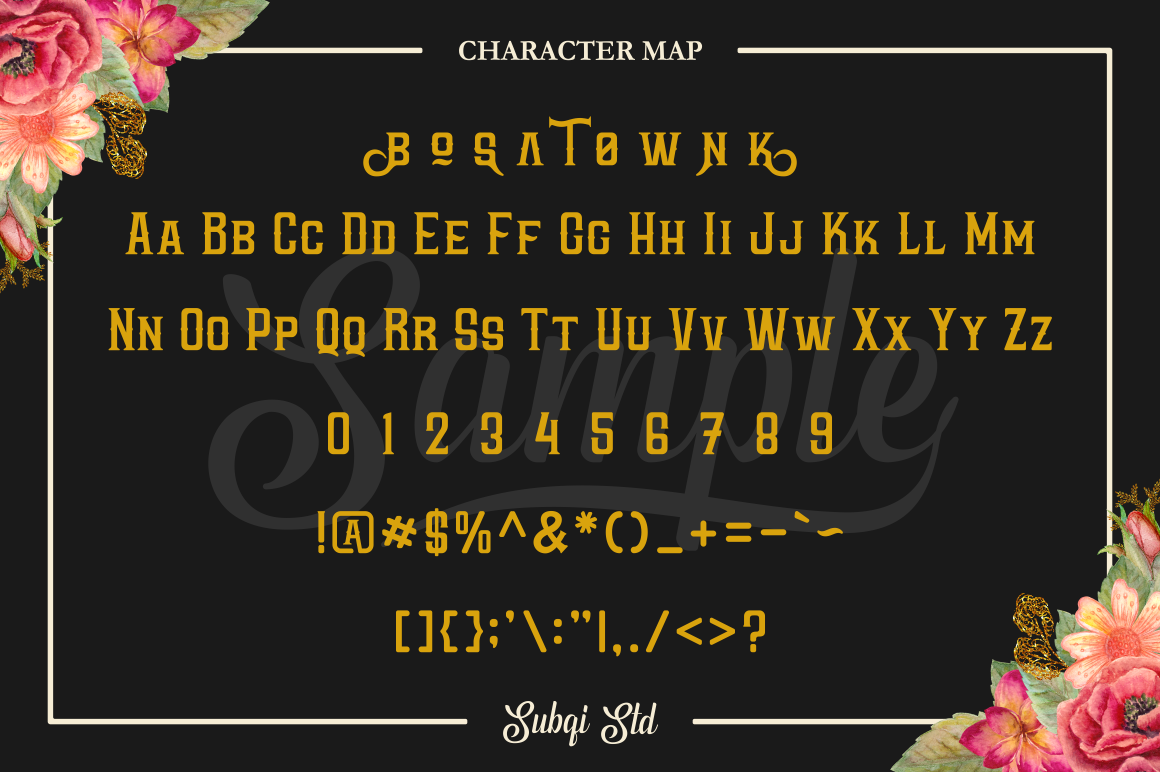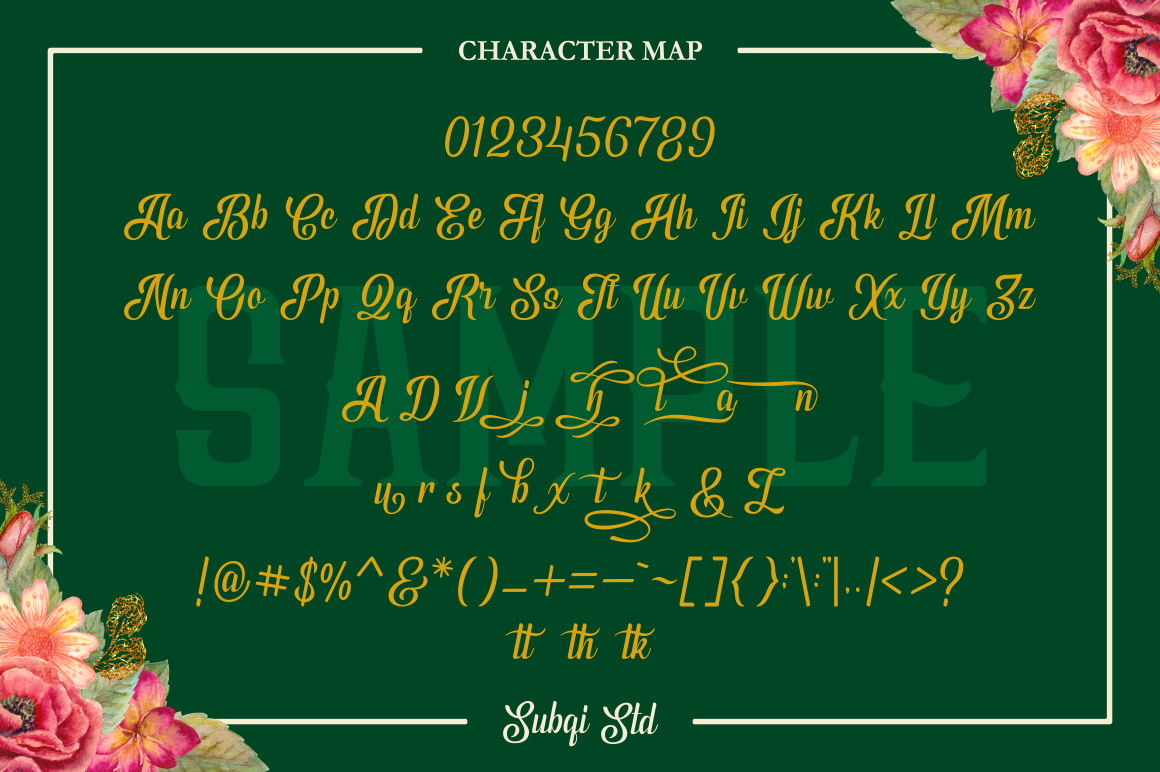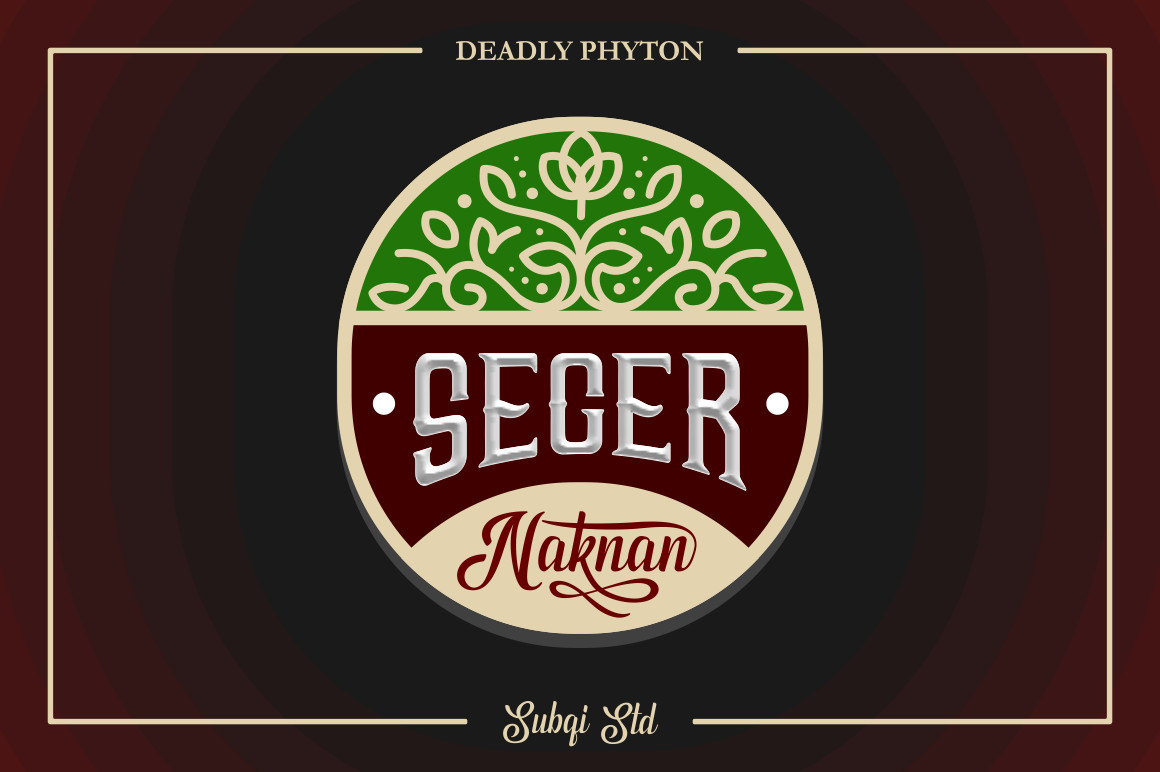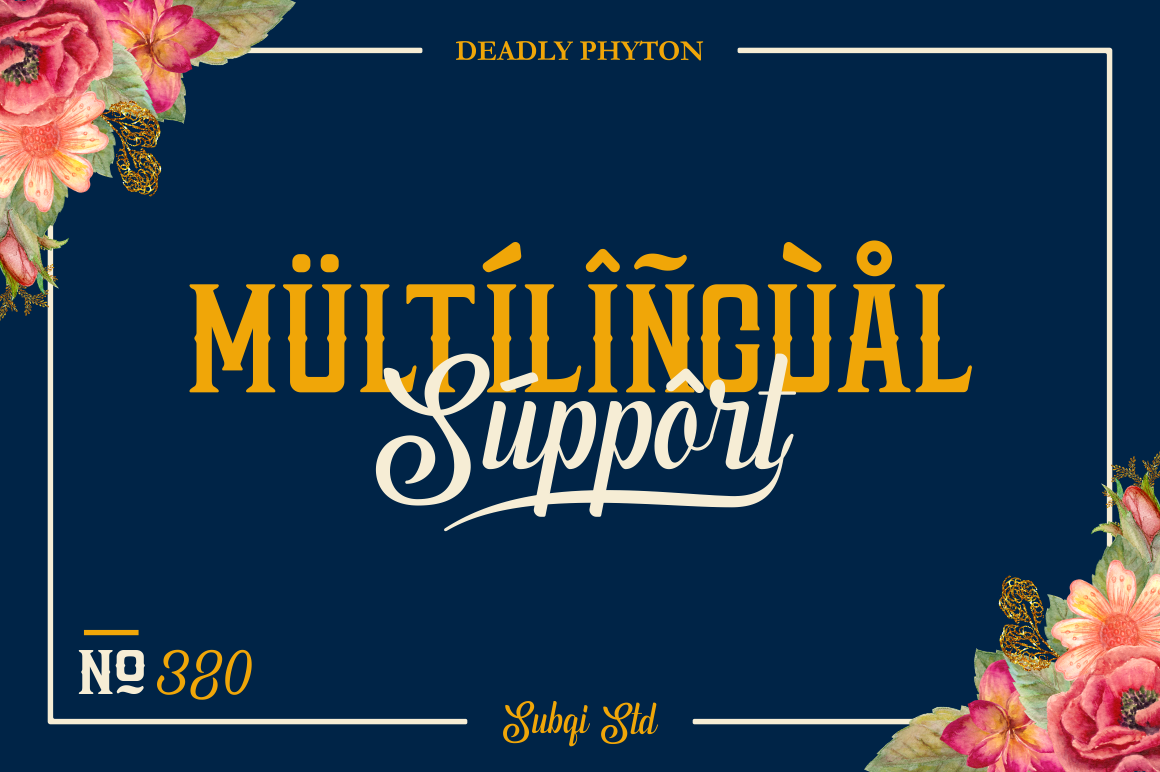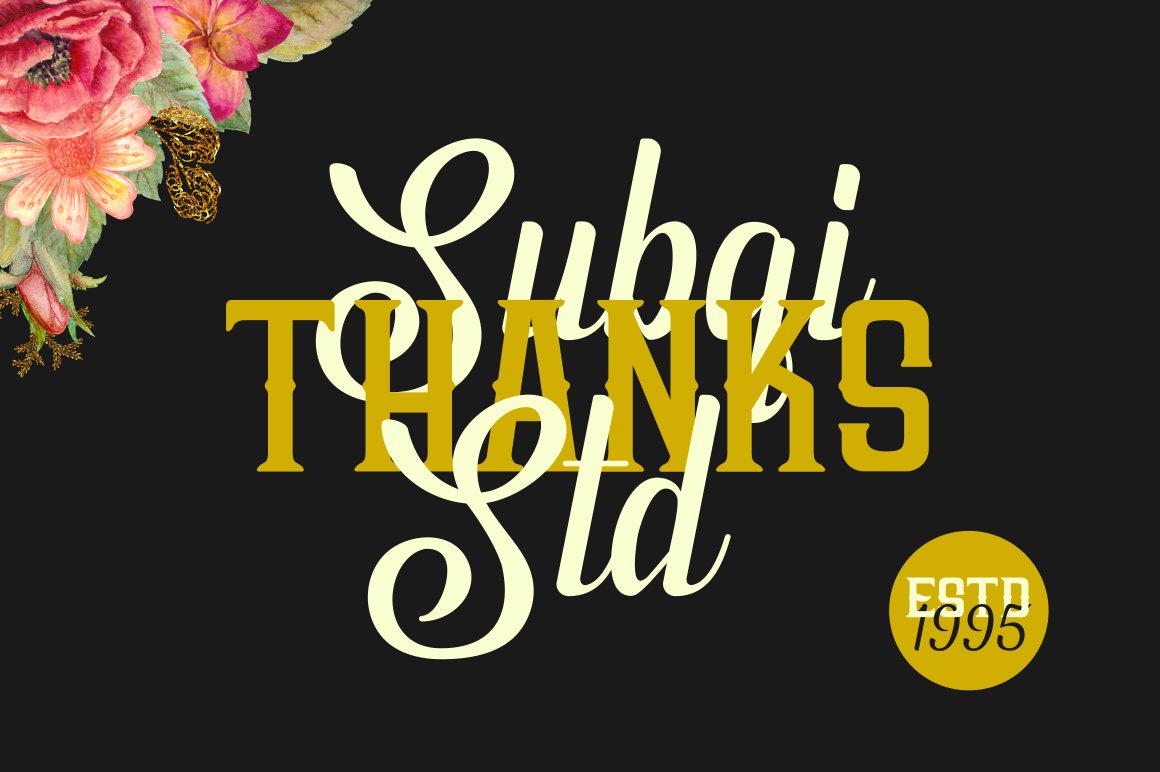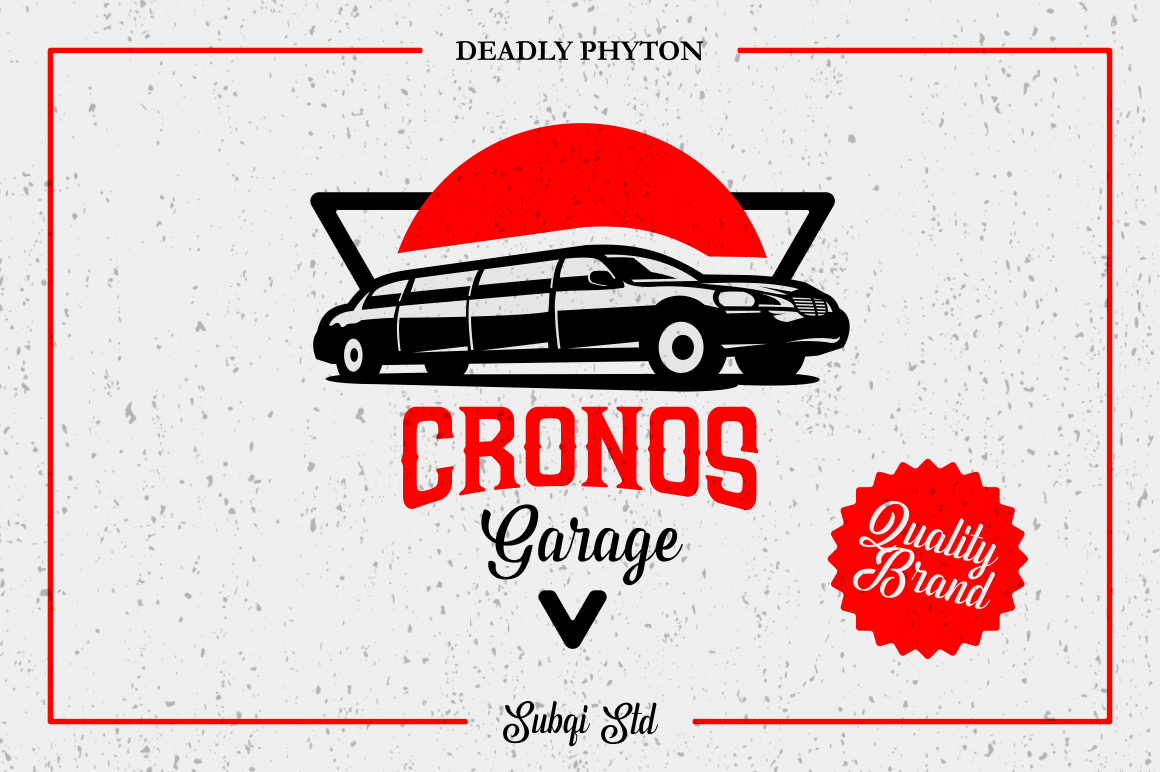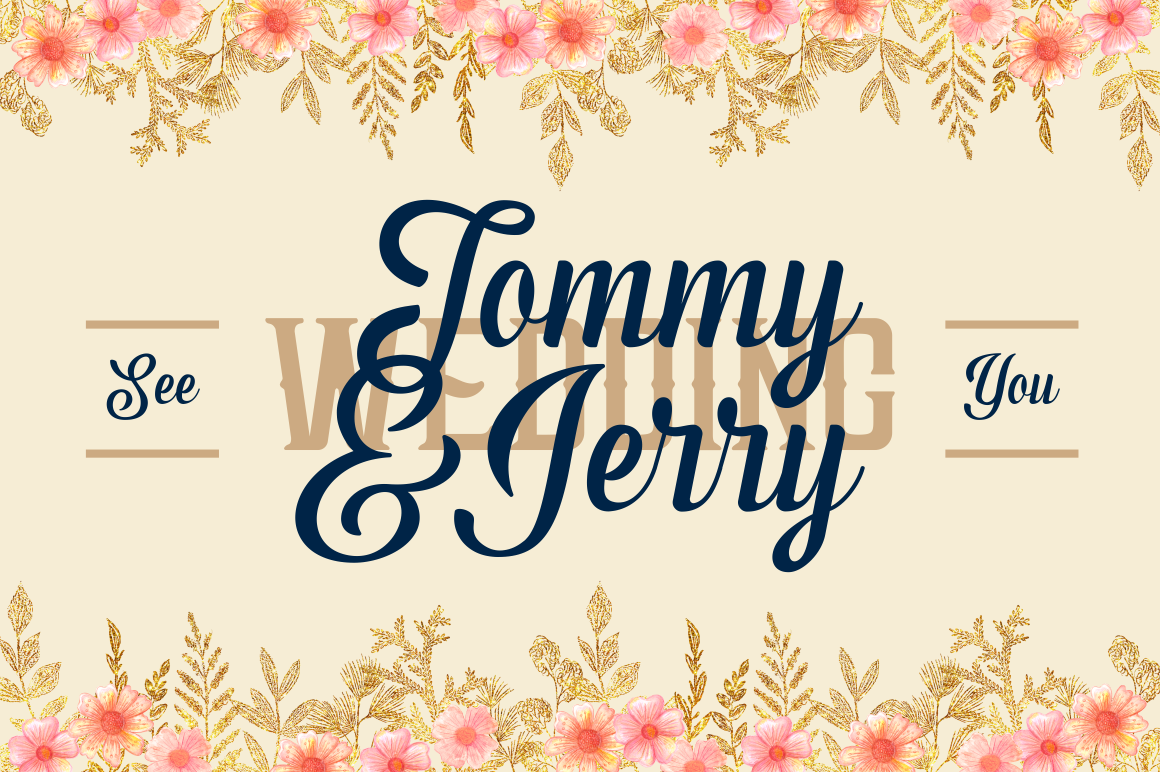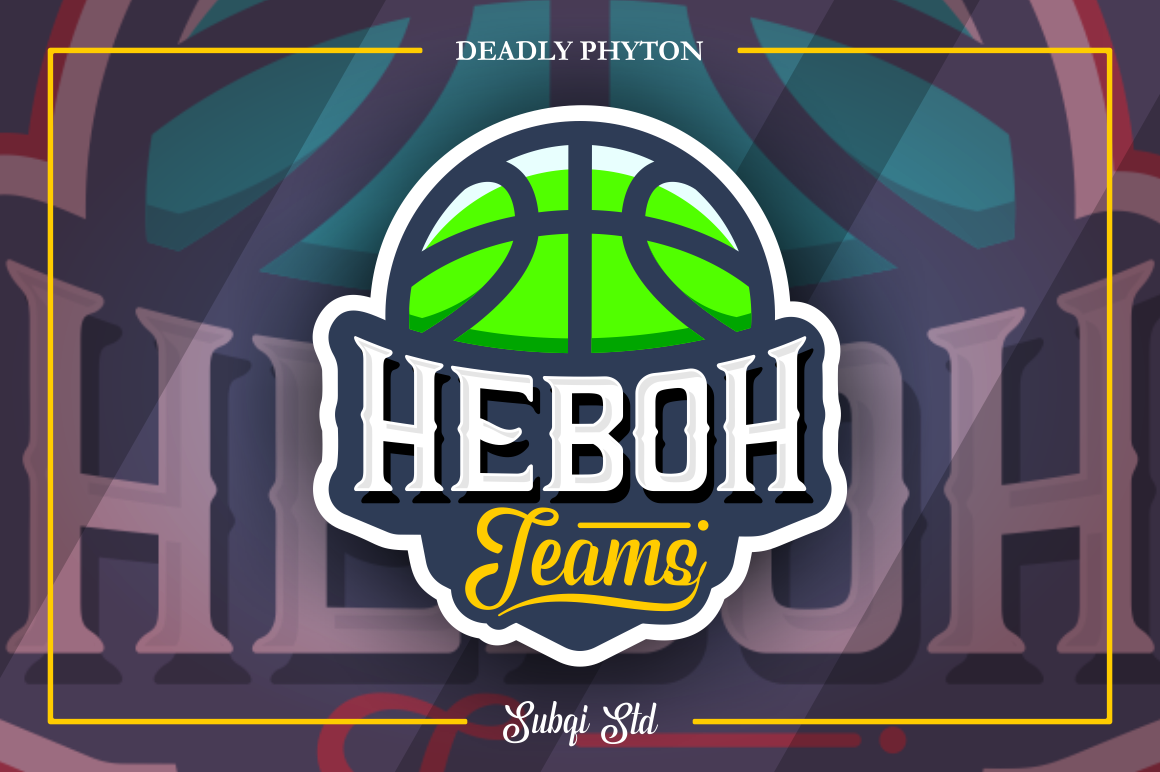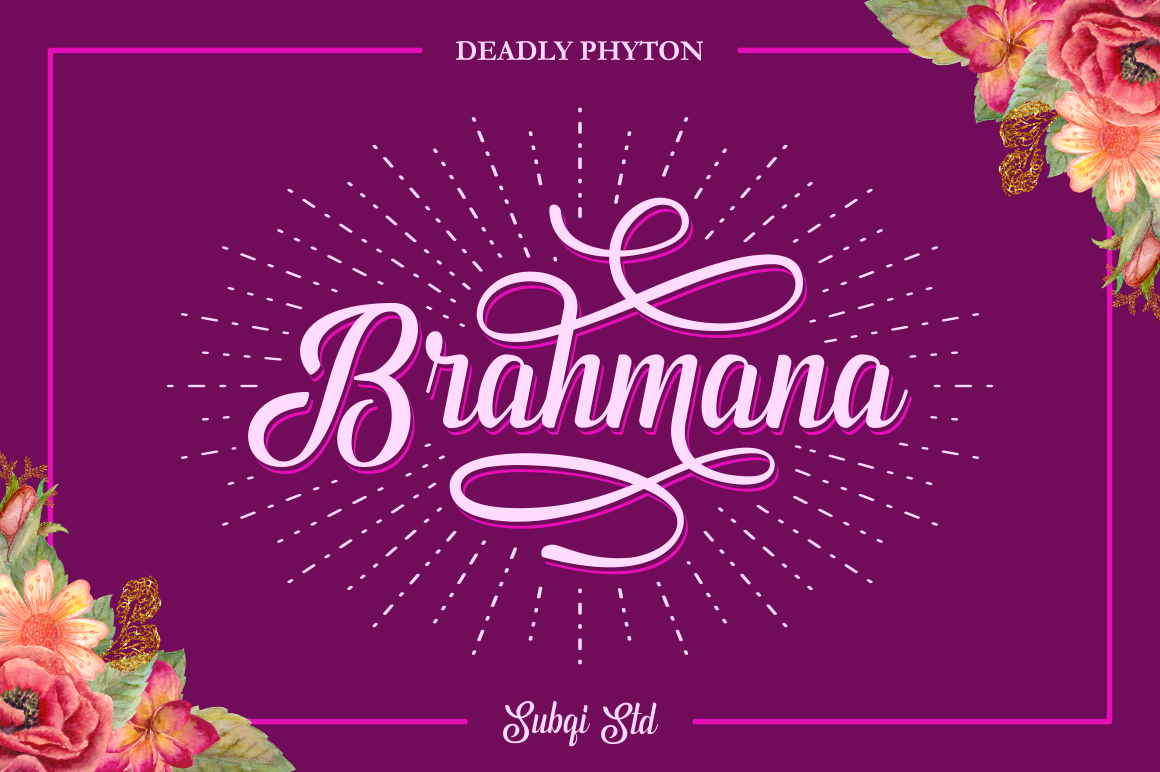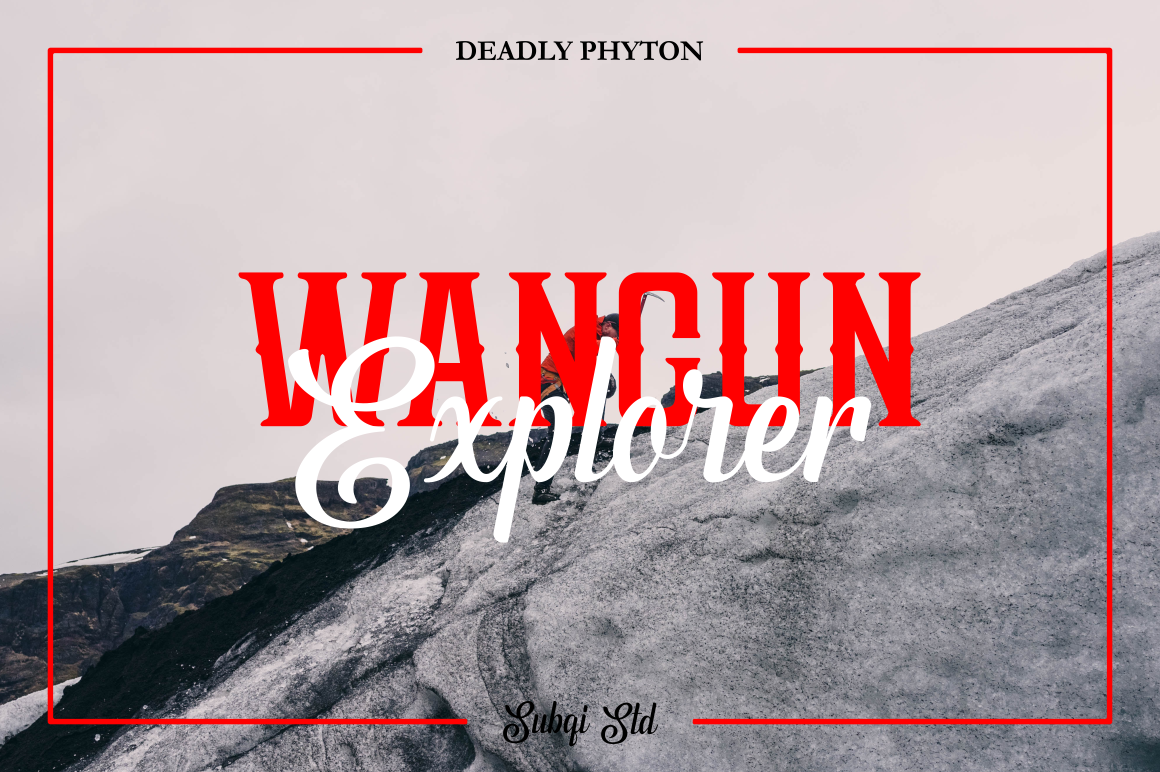
Phyton Font
About Phyton Font
The Phyton combo is a delicious script & serif duo.
This perfect balance will take your designs to a new level and will help to create a unique mix of Vintage & Modern designs.